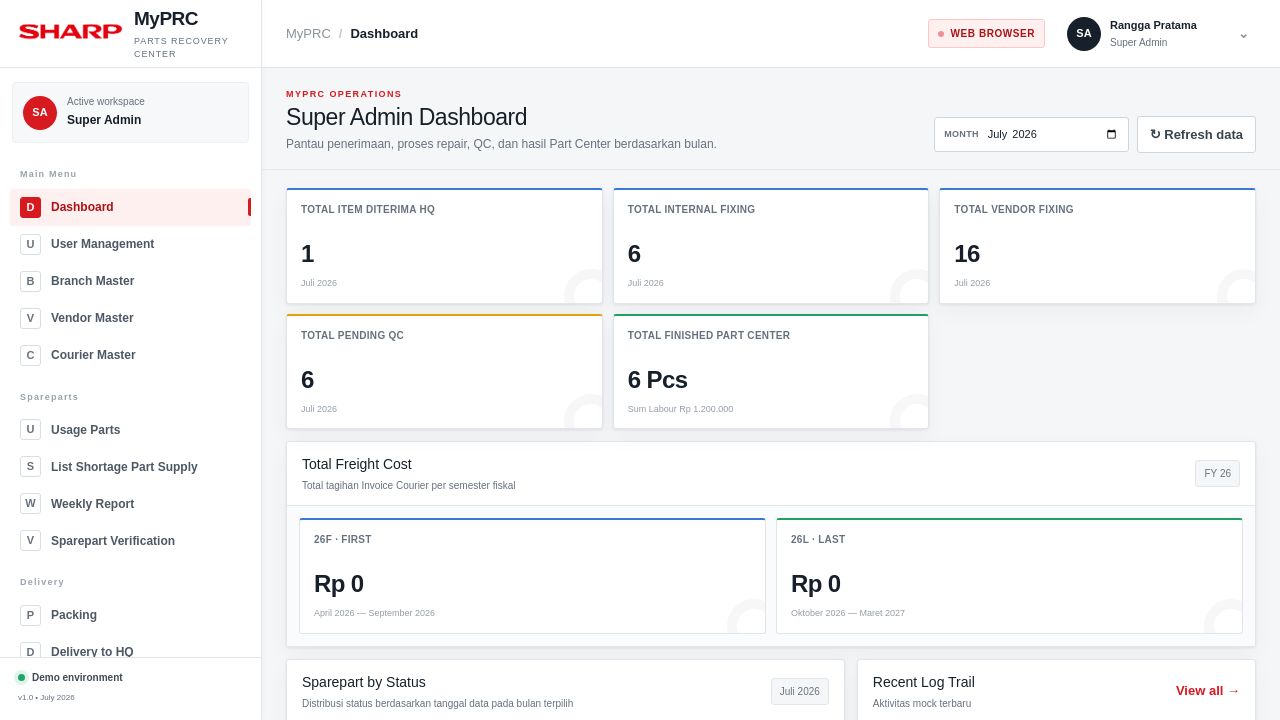
MyPRC — Parts Recovery Center
Interactive frontend mockup for the complete MyPRC operational workflow.
What fonts does Myprc-operations-demo use?
MyPRC — Parts Recovery Center is a platform designed for efficient operational workflows in the parts recovery industry. While no primary fonts were detected, the site utilizes fallback fonts such as Segoe UI and Consolas to maintain clarity and readability. The chosen CSS font stacks, including Inter and ui-sans-serif, suggest a focus on functionality and user experience, catering to an audience seeking streamlined interactions and effective communication in a digital environment.
Frequently asked questions about Myprc-operations-demo.fian-sasanadigital.chatgpt.site's fonts
What fonts are used on myprc-operations-demo.fian-sasanadigital.chatgpt.site?
No primary fonts were detected for myprc-operations-demo.fian-sasanadigital.chatgpt.site. The site relies on fallback fonts like Segoe UI and Consolas.
How does Inter compare to other fonts in the CSS stack?
Inter is designed for high readability on screens, making it an excellent choice for user interfaces compared to other fonts in the stack like ui-sans-serif.
What styles or weights are available for the fallback fonts?
Segoe UI and Consolas offer various styles and weights, including regular, bold, and italic, providing flexibility for different design needs on the site.